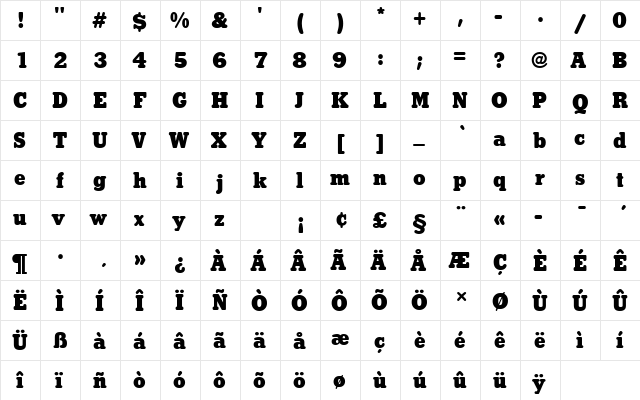
StymieTBlaRo1 Regular
Design Context for StymieTBlaRo1 Typeface
StymieTBlaRo1 offers clean, dependable letterforms without strong stylistic allegiance, making it a practical choice for designers who need flexibility.